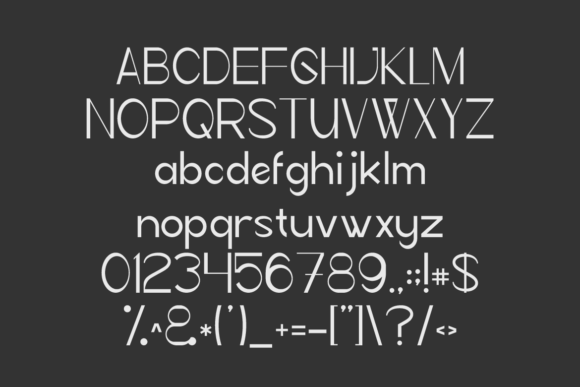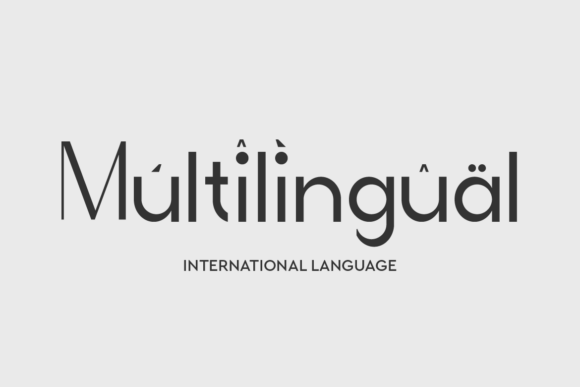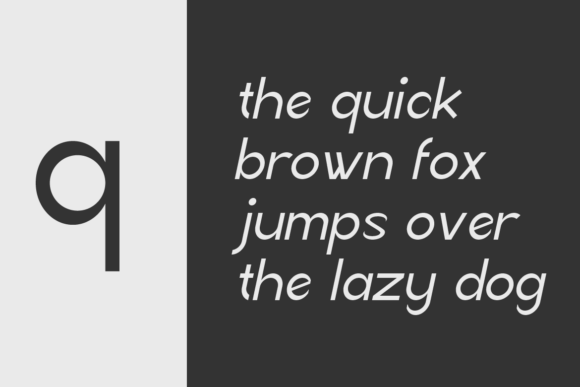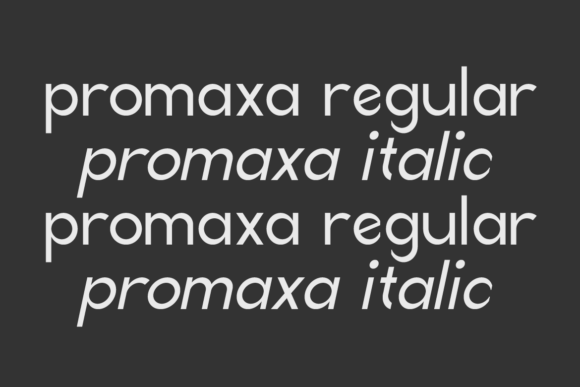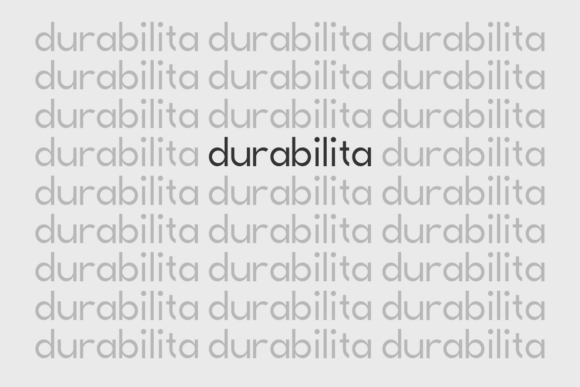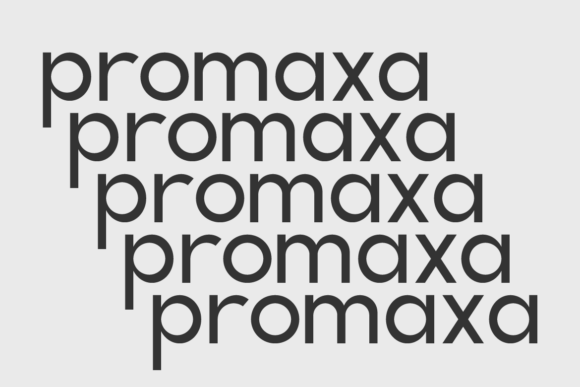
Introduction to Promaxa Font
You know that moment when a design comes together perfectly, and it’s like the whole project just clicks? For designers, that feeling is priceless. It’s the result of combining the right elements, from typography to color schemes, to create something truly memorable. And at the heart of any successful design is the font. In this article, we’ll be exploring the Promaxa Font, a confident and versatile sans serif font designed to make a lasting impression.
The Promaxa Font is a high-quality design resource that’s perfect for any creative project. With its strong geometry, clean edges, and slightly extended letterforms, it brings a modern aesthetic that’s perfect for headlines, branding, advertising, and editorial use. Whether you’re looking for a free download or a premium font for your next project, Promaxa Font is definitely worth considering.
Key Features of Promaxa Font
- Designed with a modern and sleek aesthetic, making it perfect for digital designs
Honest Review: Promaxa Font
I recently had the chance to work with the Promaxa Font and I must say it’s a great addition to my design resources. The high quality of the font makes it perfect for any creative project that requires a professional touch.
However, there are some limitations to keep in mind: ⚠️ The font may not be as versatile as some other popular fonts, and it may not be the best choice for projects that require a lot of customization. Additionally, some users may find the font’s modern design to be a bit too trendy.
Overall, I’m really impressed with the Promaxa Font. It’s a great design resource that can add a lot of value to your creative projects. With its high quality and transparent background, it’s a great choice for designers who want a professional-looking font without breaking the bank.
Here are some key features of the Promaxa Font:
- High quality
- Multiple weights
How to Use Promaxa Font
Promaxa Font is a high-quality, free design resource ideal for various creative projects. With its unique style and transparent background, it can elevate your visual content to the next level.
Tips for Getting the Most Out of Promaxa Font
To maximize the effectiveness of Promaxa Font, experiment with different font sizes, colors, and combinations to find the perfect look for your design.
Promaxa Font is ideal for use in logos, business cards, brochures, and other marketing materials where a unique and eye-catching font is required.